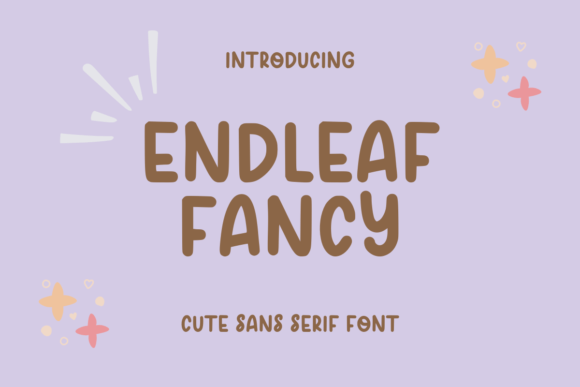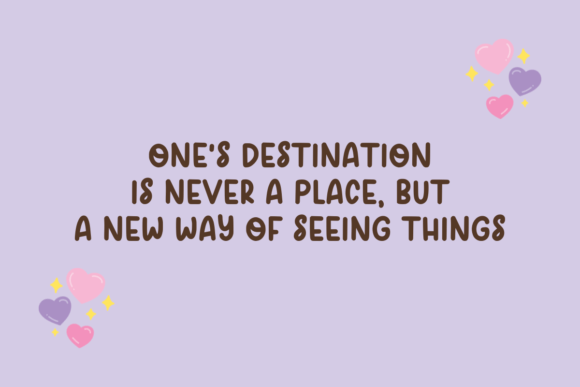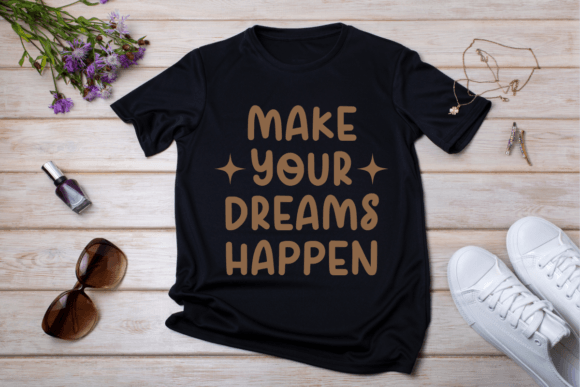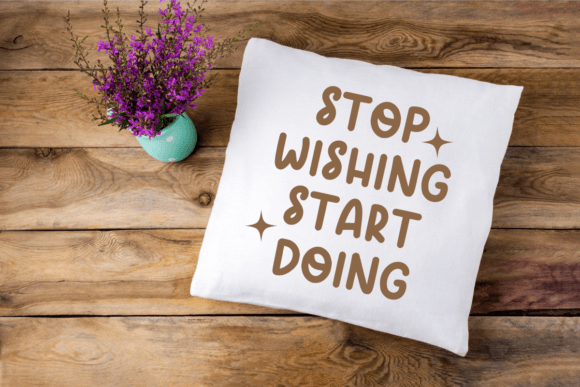
Endleaf Fancy Font
About the Endleaf Fancy Font
We are excited to introduce Endleaf Fancy Font, a must-have typeface for any serious designer. Endleaf Fancy is a cute sans serif font. That is suitable for perfecting your creative projects such as stickers, notes, planners, SVG quotes, t-shirts, wall art, Cricut, craft, embroidery, posters, cards, and many other ideas.
Endleaf Fancy’s playful, rounded forms make it ideal for projects requiring a friendly and approachable aesthetic. It excels in headlines, short text blocks on posters or social media graphics, and branding for businesses targeting a younger demographic or those with a lighthearted brand identity. Avoid using it for body copy or lengthy text; its charm diminishes in larger blocks of text.
Consider pairing Endleaf Fancy with a clean sans-serif like Open Sans for readability in supporting text, or a classic serif like Garamond for a sophisticated contrast. For a more playful combination, a handwritten script font could add another layer of personality. Geometric sans-serifs would also create visual interest, providing a counterpoint to Endleaf Fancy’s organic curves.
The font’s overall personality is best described as cheerful and informal, making it unsuitable for projects requiring a high degree of professionalism or formality.